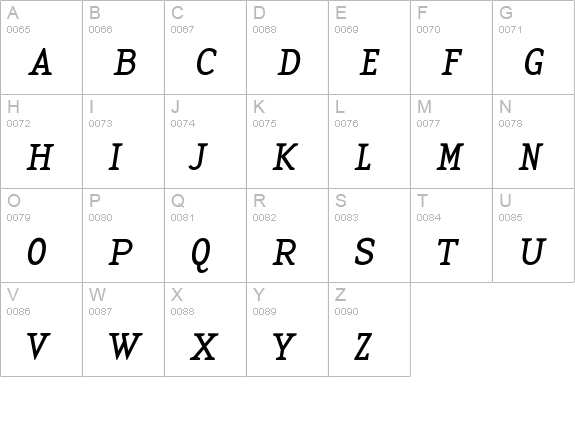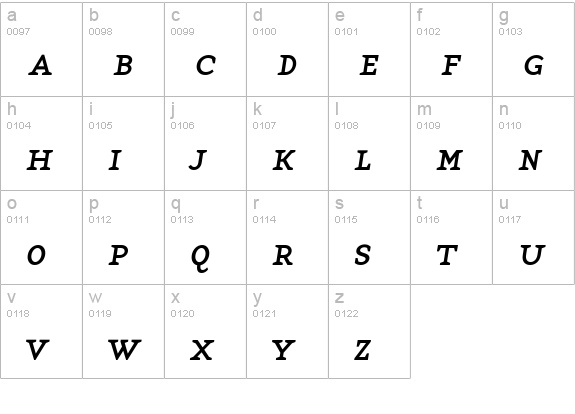
BaseTwelveSerifSCI Font Details
Introducing BaseTwelveSerifSCI, a beautifully crafted serif font that exudes elegance and sophistication. This versatile typeface features intricate details and clean lines, making it perfect for a wide range of design projects. Whether you are creating invitations, logos, or branding materials, BaseTwelveSerifSCI will add a touch of class to your work. What sets BaseTwelveSerifSCI apart is its unique blend of traditional serif elements with a modern twist. The balanced letterforms and subtle serifs give this font a timeless appeal that will stand the test of time. Its legibility and readability make it a great choice for both print and digital media. And the best part? BaseTwelveSerifSCI is available for free download at FontsMarket.com. Now you can elevate your designs without breaking the bank. Don't miss out on this opportunity to add a touch of sophistication to your projects with BaseTwelveSerifSCI. Download it today and see the difference it makes in your designs!